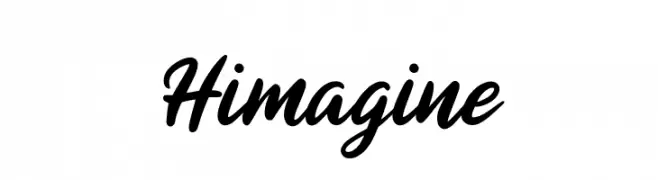
A flowing, elegant script font with connected characters and decorative flourishes.
A dynamic and elegant script font with flowing, interconnected letterforms.
A dynamic script font with elegant, flowing cursive letterforms.
Bold cursive script with a handwritten style.
Handwritten cursive script font.